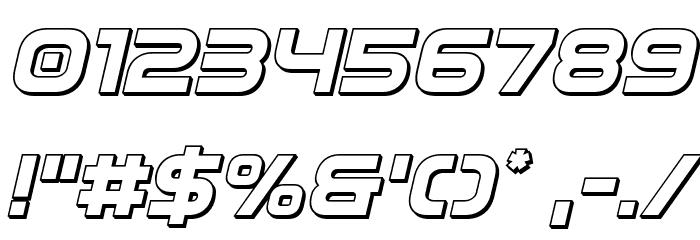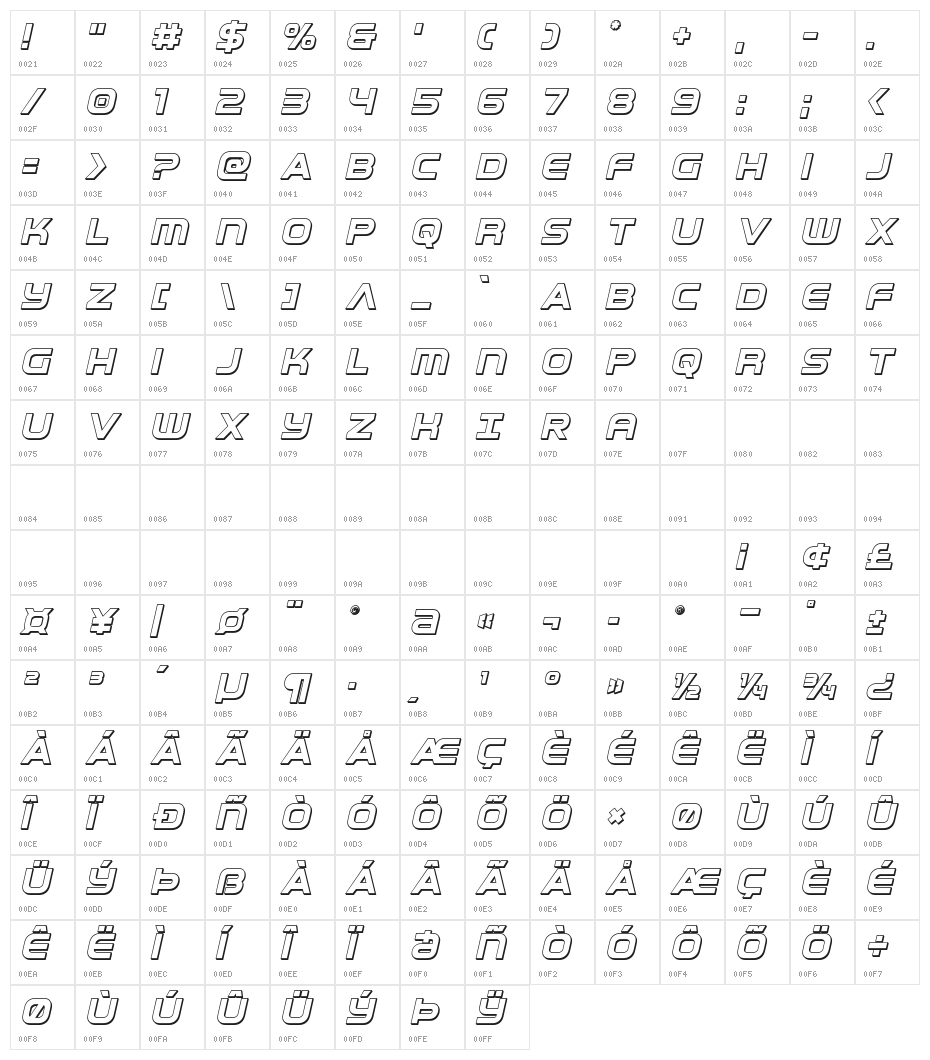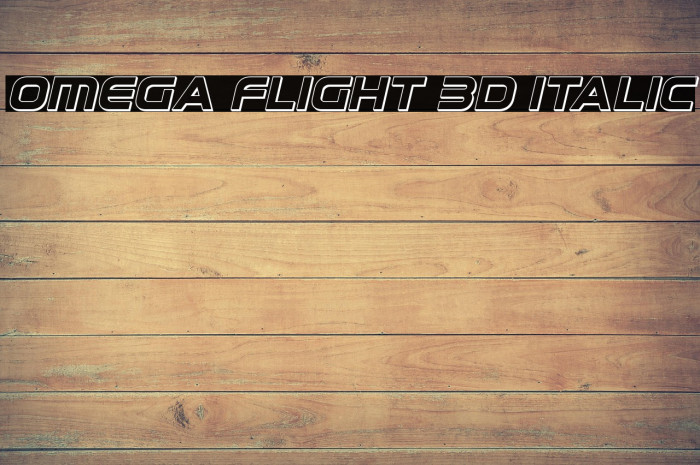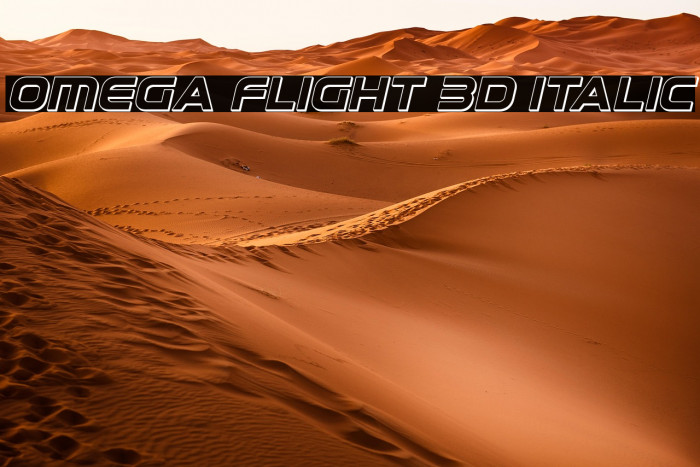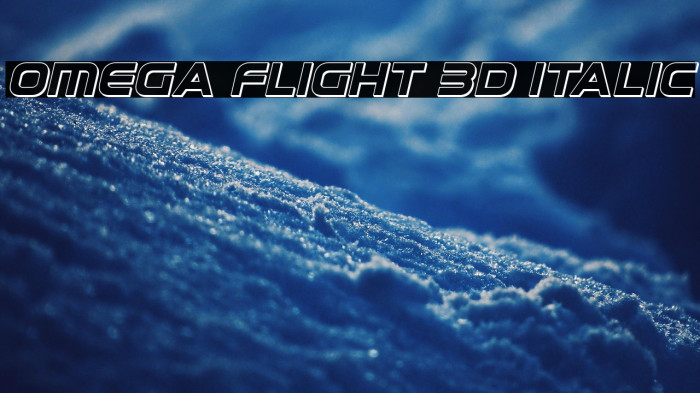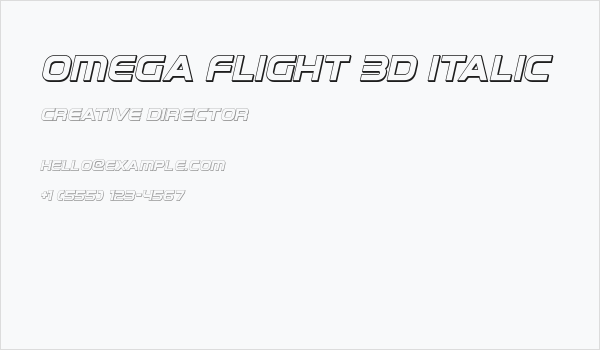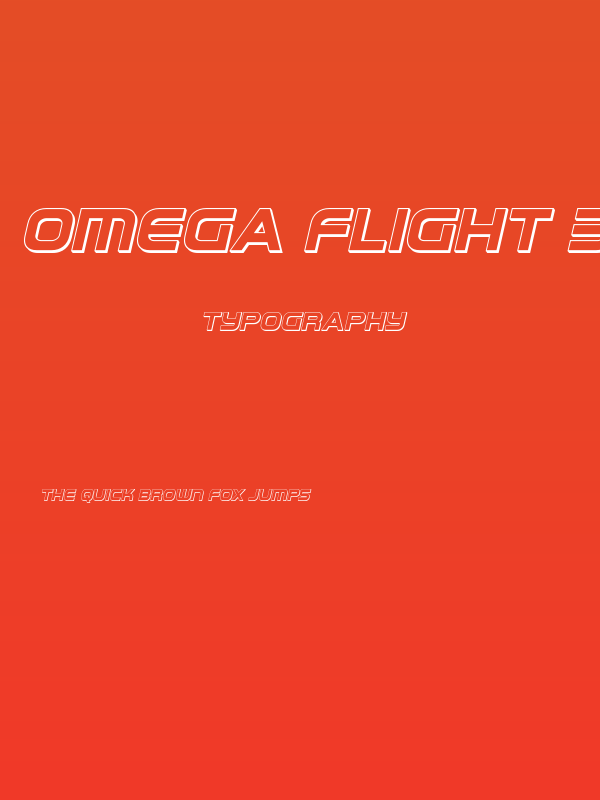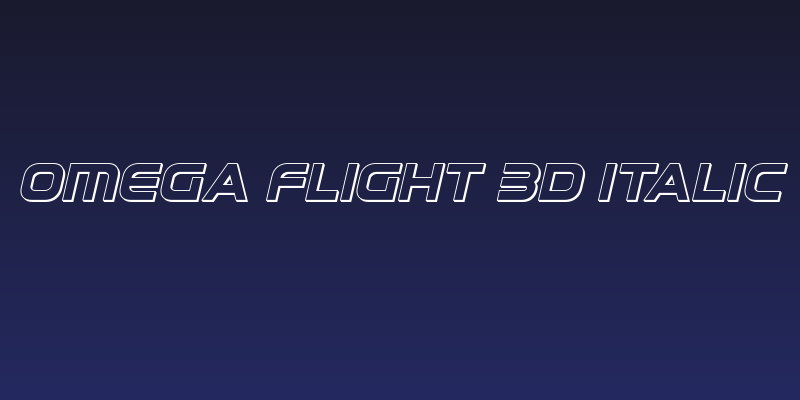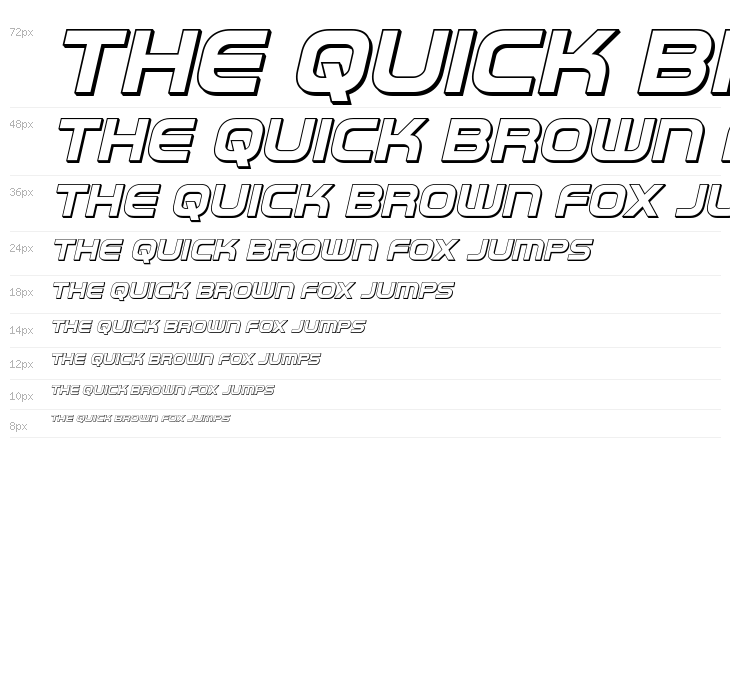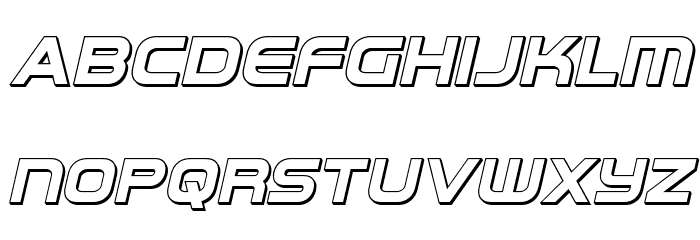
Omega Flight 3D Italic Font
Omega Flight 3D Italic Description
This font features a dynamic and futuristic design with a 3D effect that gives it a sense of depth and movement. The italicized style adds a forward-leaning motion, enhancing its modern and energetic appearance. Each character is outlined, creating a bold and striking visual impact. The font maintains a consistent width and spacing, ensuring readability while emphasizing its unique style. The characters are slightly condensed, contributing to a compact and efficient look. This font is ideal for projects that require a contemporary and eye-catching aesthetic.
| Proposed Projects | Ideal for sci-fi themed posters, video game titles, technology branding, and modern advertising campaigns. |